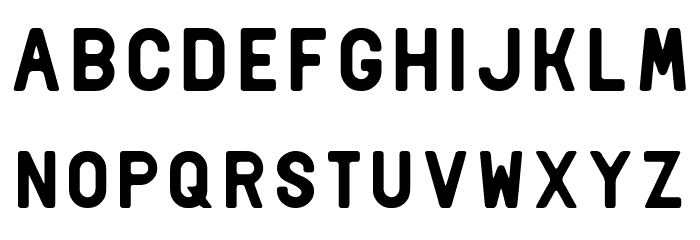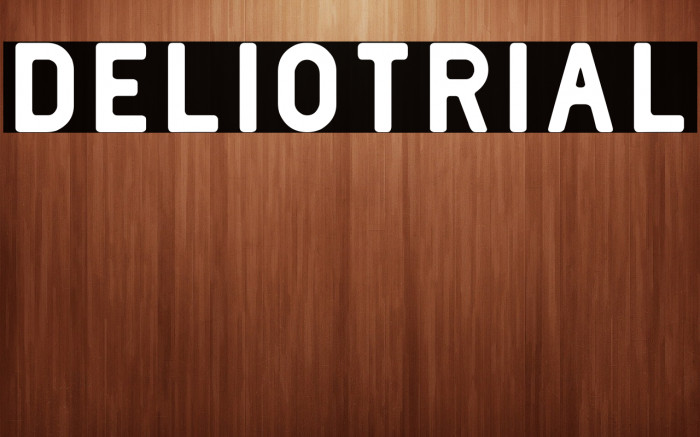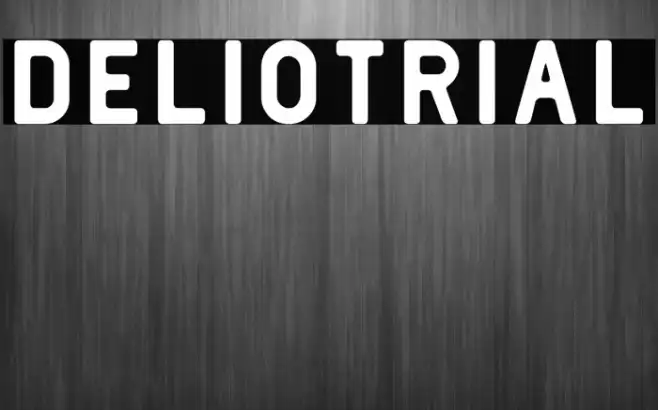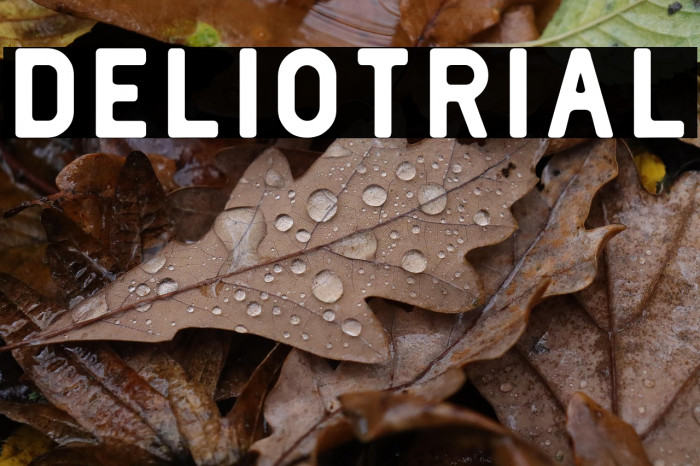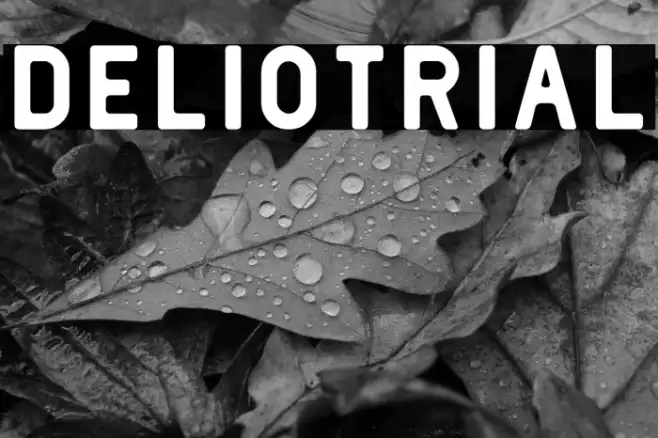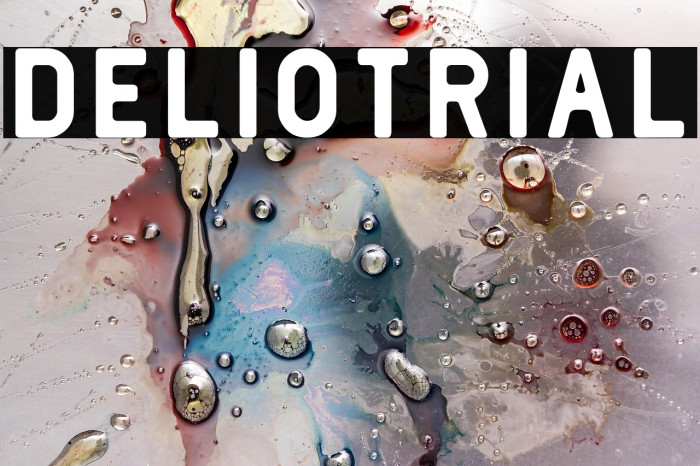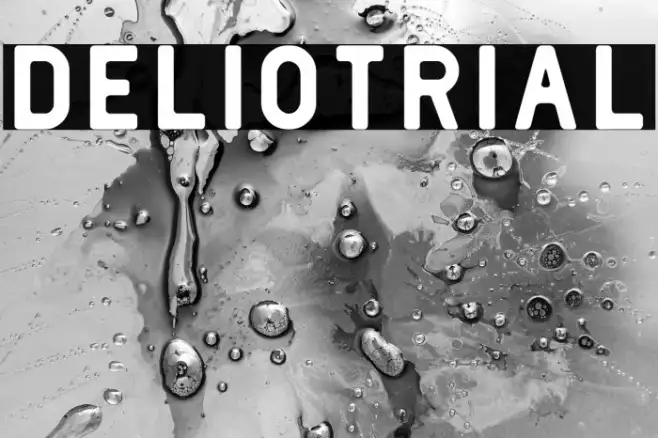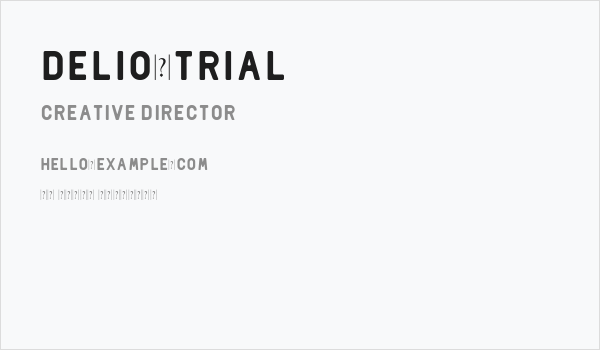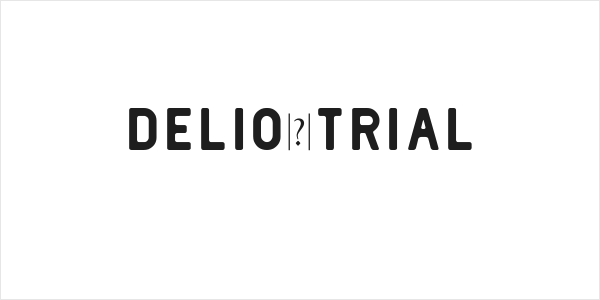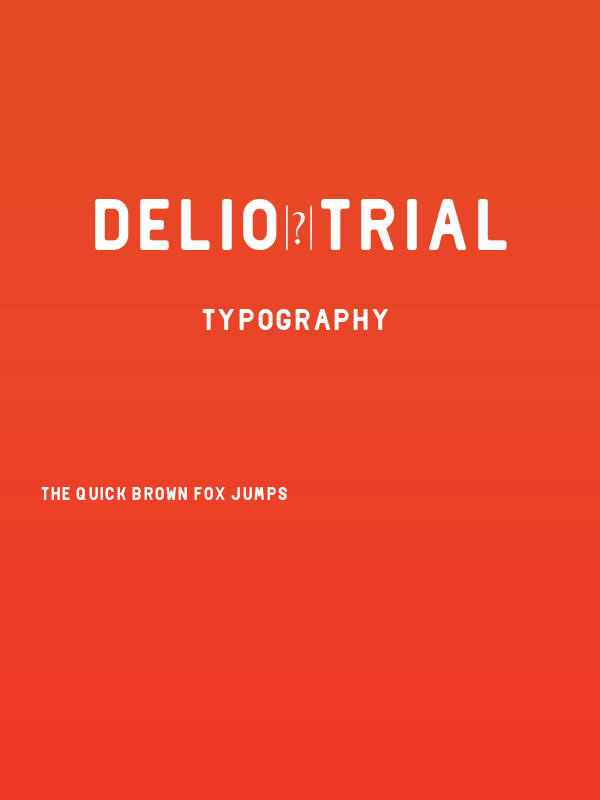
Delio-trial Font
Delio-trial Description
This font features bold, rounded characters with a modern and clean aesthetic. The uppercase letters are uniform in height, providing a consistent and balanced appearance. The strokes are thick and even, contributing to a strong visual impact. The overall design is straightforward and legible, making it suitable for a variety of applications. The font maintains a uniform width across all characters, ensuring a cohesive look. Its simplicity and boldness make it ideal for attention-grabbing headlines and titles.
| Proposed Projects | Ideal for branding, advertising, posters, and headlines where a strong and modern impression is needed. |